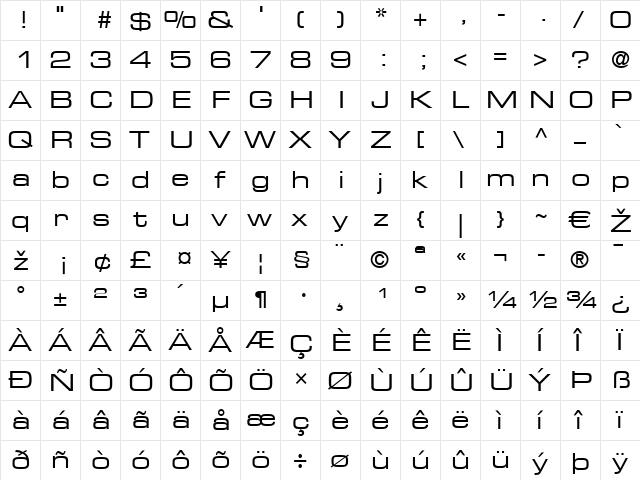
Eurostile LT ExtendedTwo Regular
Design Context for Eurostile LT ExtendedTwo Typeface
Eurostile LT ExtendedTwo offers clean, dependable letterforms without strong stylistic allegiance, making it a practical choice for designers who need flexibility. The delicate stroke weight brings airiness and refinement to layouts.